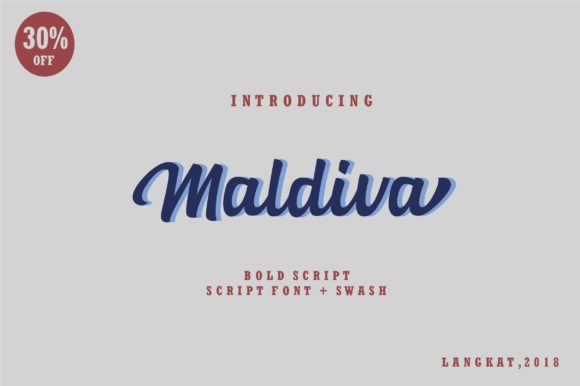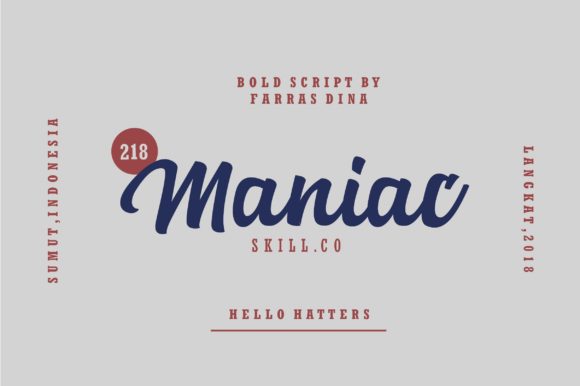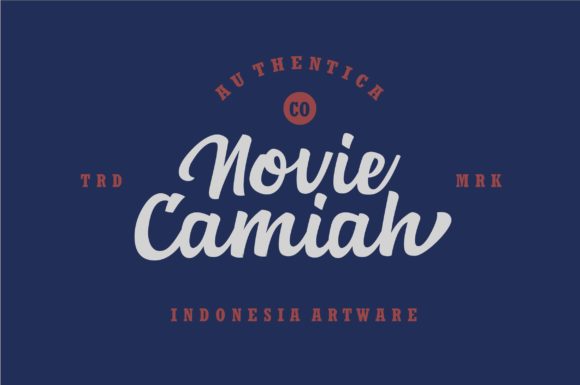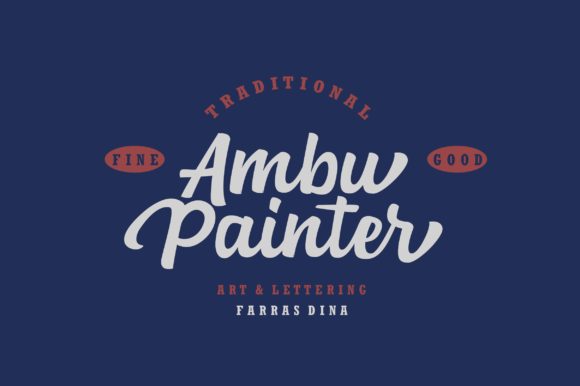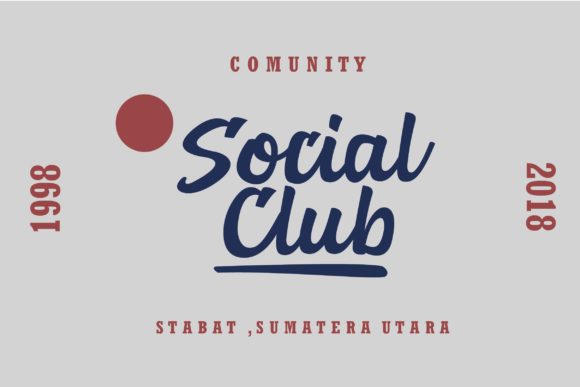
Maldiva Font
About Maldiva Font
Maldiva is a classic, handwritten font with a beautiful and elegant feel. It will turn any design project into a true stand out!